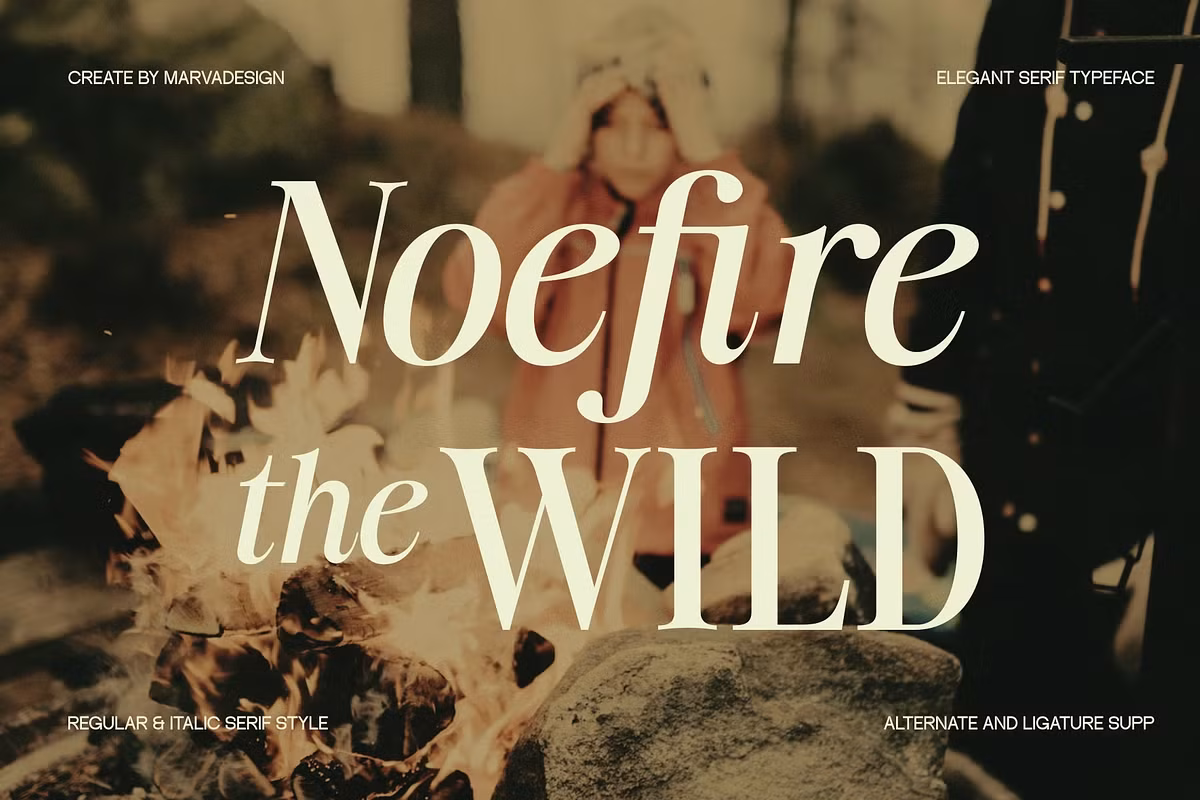
Noefire Font Free Download
Noefire Font Free Download is a sleek and stylish typeface designed to bring a modern, high-impact edge to your creative projects. Please note, you are required to purchase this font for commercial use. It is available for free download for testing and personal projects only.
With its sharp lines, clean structure, and contemporary feel, Noefire is perfect for branding, headlines, posters, digital content, and editorial layouts. It blends minimalism with strength—delivering bold messages with effortless clarity and a futuristic vibe.